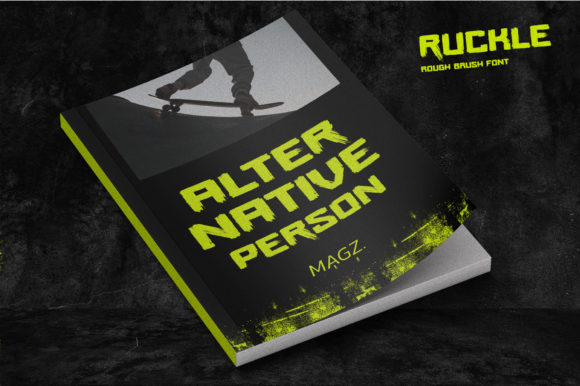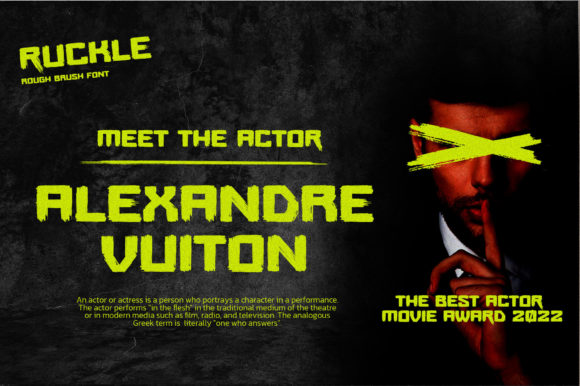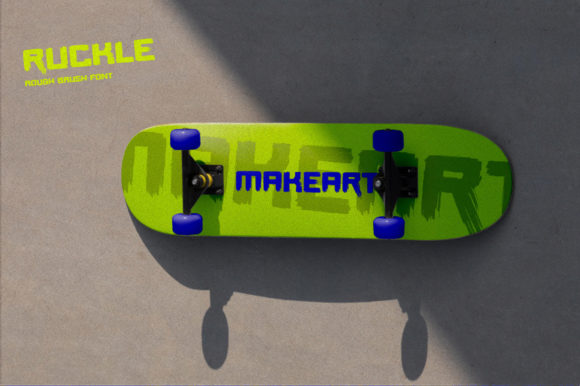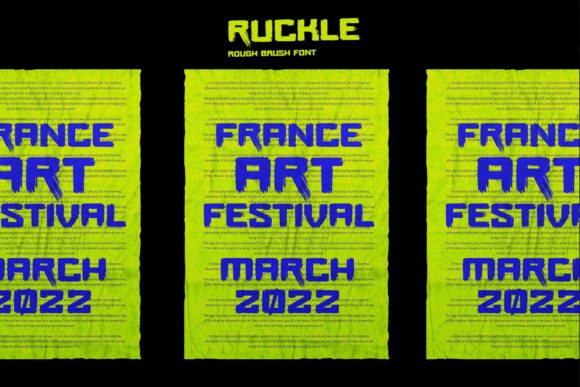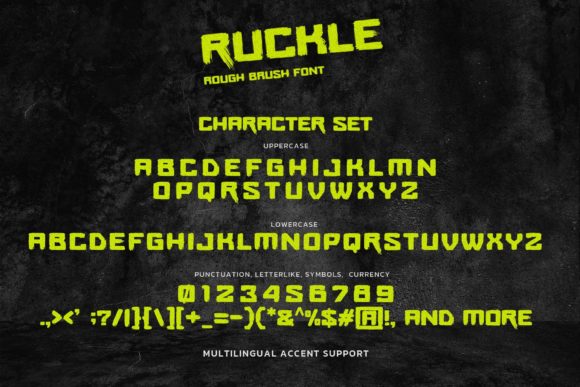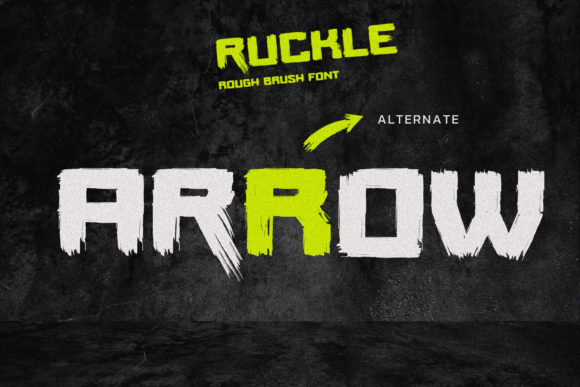
Introduction to Ruckle Font
Have you ever stared at a blank canvas, waiting for that perfect spark to ignite your creativity? For designers, it’s a moment we all know too well. But what if I told you that the key to unlocking your creative potential lies in the perfect font? Enter the Ruckle Font, a bold and eye-catching display font that’s about to revolutionize your branding projects.
As a valuable design resource, the Ruckle Font is perfect for any creative project that requires a statement piece. Whether you’re working on a logo, designing t-shirts, or creating innovative products, this font is sure to elevate your design game. And the best part? It’s available for free download, complete with a transparent background, making it a high-quality addition to any design project.
Key Features of Ruckle Font
- High-quality, unique font design ideal for creative projects requiring a distinctive touch.
- Comes with a transparent background, allowing for seamless integration into various design resources.
- Designed to be highly legible and versatile, suitable for use in a variety of contexts, from headings to body text.
- Features a large character set, including international characters and symbols, making it a valuable design resource.
- Resolution-independent, ensuring crisp and clear rendering at various sizes and resolutions.
Honest Review: Ruckle Font
I recently came across the Ruckle Font, and I must say it’s a fantastic design resource for any creative project. The font’s unique, hand-drawn style adds a touch of personality to any text, making it perfect for editorial or advertising work.
- ✨ High-quality vector design: The Ruckle Font is a high-quality vector design that can be scaled up or down without losing any of its crispness.
- ✨ Transparent background: The font comes with a transparent background, making it easy to layer over other design elements.
However, I do have a few minor complaints.
- ⚠️ Limited character set: The font only includes a limited character set, which may not be suitable for all design projects.
- ⚠️ Not ideal for small text: Due to its hand-drawn style, the font may not be the best choice for small text or fine typography.
Overall, I’m impressed with the Ruckle Font. It’s a great design resource for designers looking for a unique, high-quality font for their creative projects. While it may have a few limitations, its strengths make it well worth considering for your next design project.
Common Use Cases for Ruckle Font
The Ruckle Font is ideal for designing business cards, brochures, and other marketing materials. Its unique style and high-quality design make it perfect for creative projects that require a professional touch.